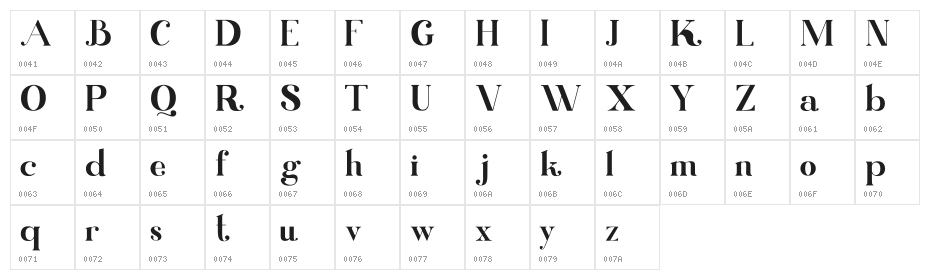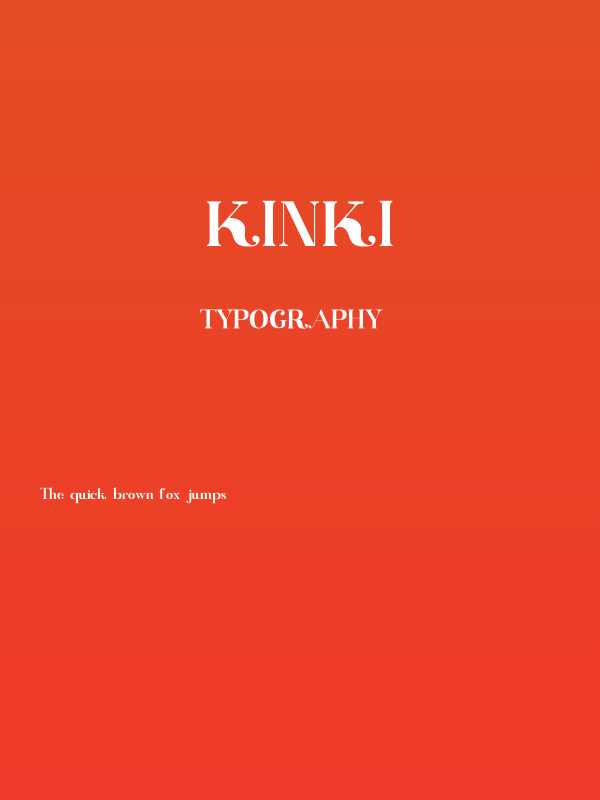
Kinki Font
Kinki Description
This font features a unique blend of classic serif elements with a modern twist. The characters exhibit high contrast between thick and thin strokes, giving it an elegant and sophisticated appearance. The serifs are pronounced and slightly exaggerated, adding a decorative flair to the overall design. The uppercase letters are bold and commanding, while the lowercase letters maintain a harmonious balance with their more delicate curves. This font's distinctive style is further enhanced by its playful and artistic terminals, making it stand out in any design context.
| Proposed Projects | Ideal for branding, editorial design, luxury product packaging, and invitations. |